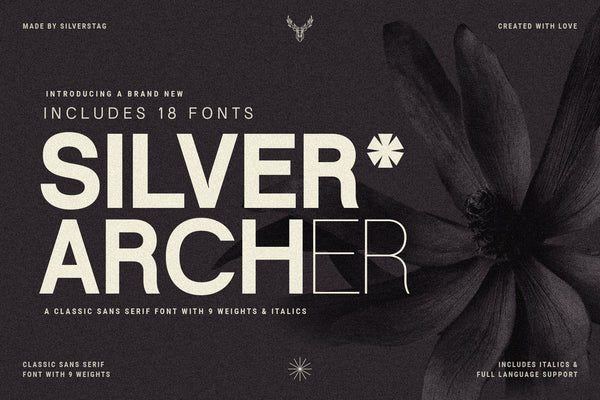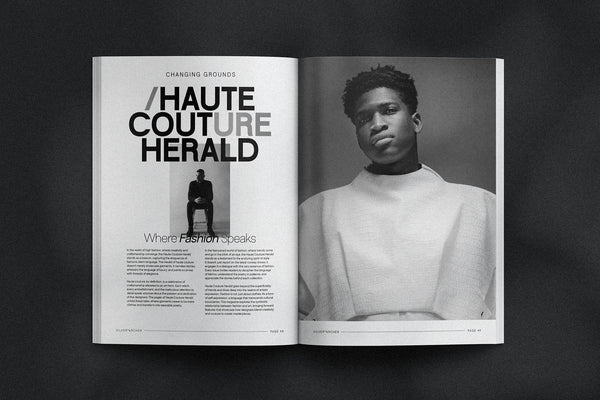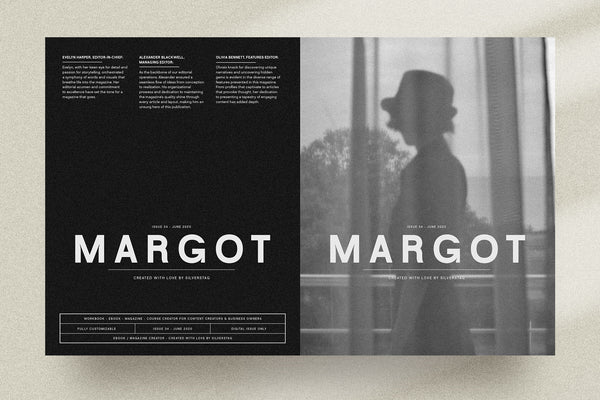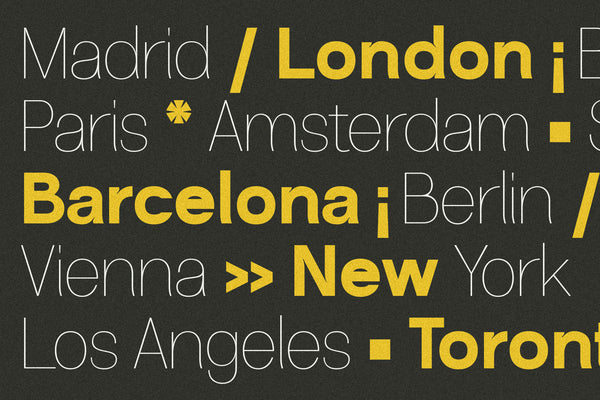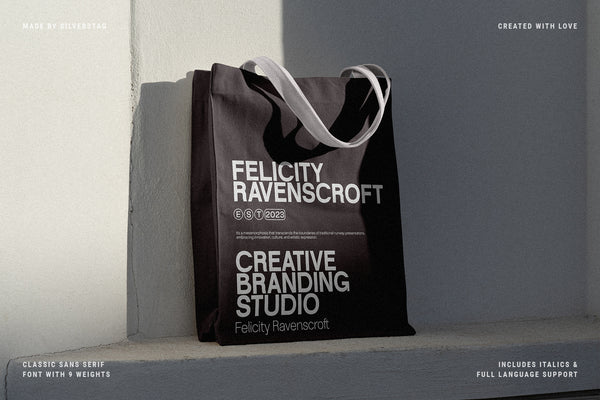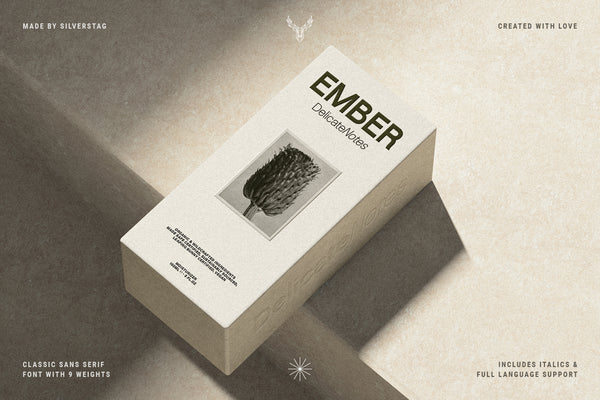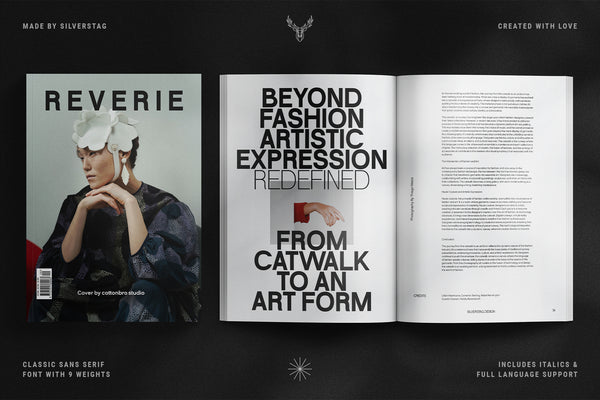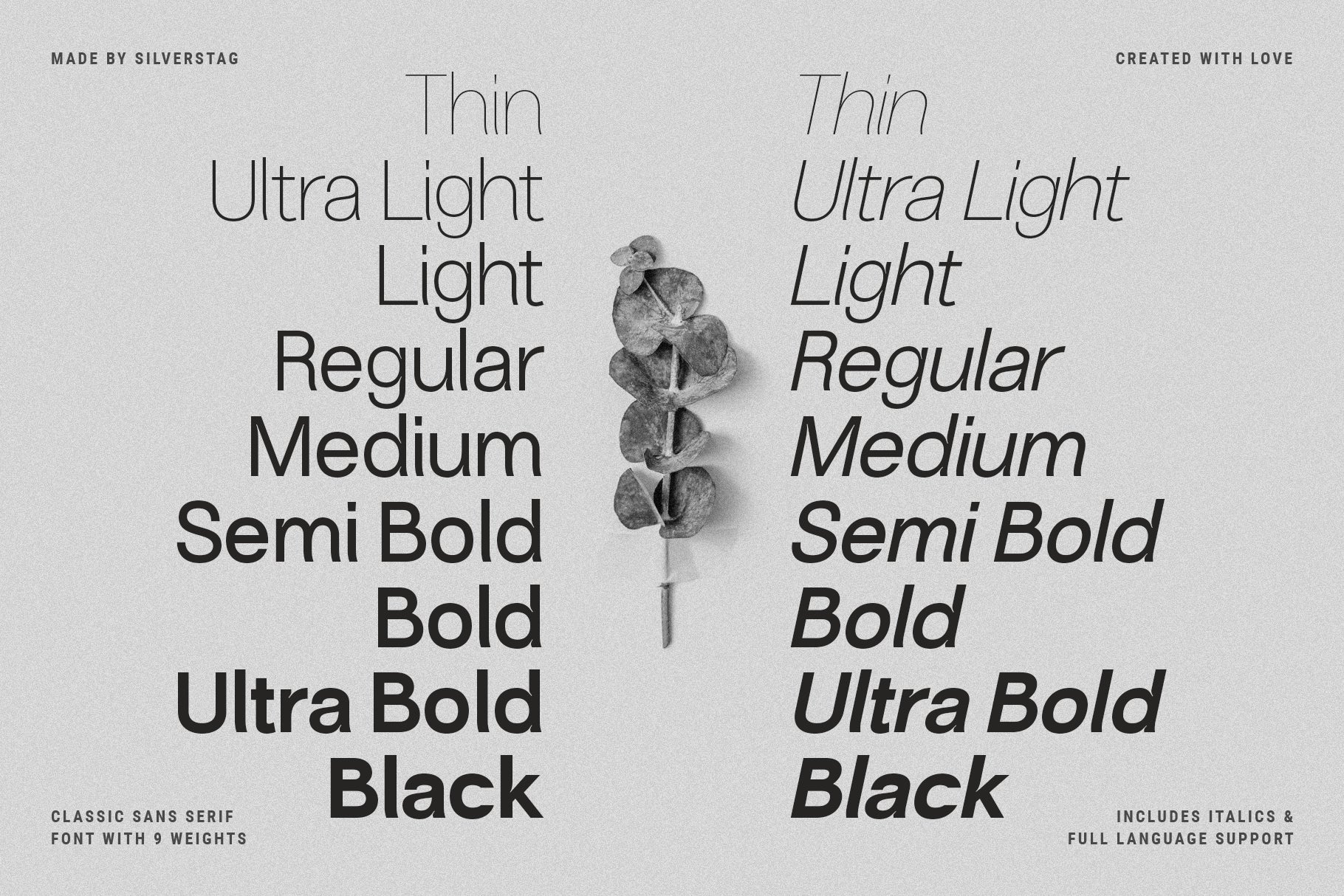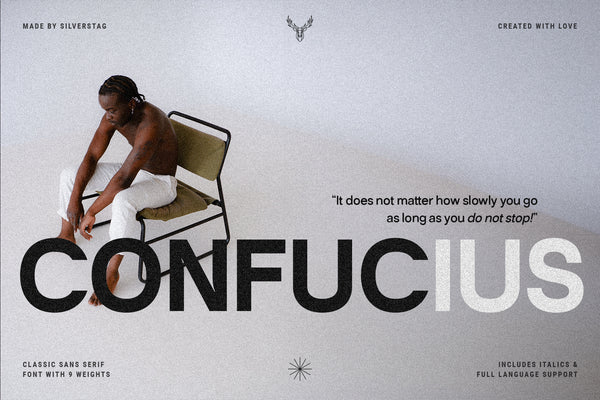
Silver Archer - Classic Sans Typeface
SLTF Silver Archer is a timeless sans serif typeface family inspired by the enduring elegance of mid-20th-century modernist design. With a refined balance of structure and softness, it offers a classic look that feels just as at home in contemporary branding as it does in editorial layouts or digital interfaces.
This versatile font family includes 18 styles — nine weights from Thin to Black, each with a matching italic — giving you full creative flexibility for hierarchy, tone, and typographic contrast. Designed with open counters, harmonious proportions, and a generous x-height, Silver Archer ensures excellent readability in both print and screen environments.
From luxury branding to book covers, websites, apps, and multilingual design systems, Silver Archer was built to perform with elegance and consistency. It supports over 90 languages, making it a smart choice for global design work.
Whether you’re crafting minimalist packaging, editorial layouts, or timeless brand identities, Silver Archer brings quiet confidence and classical charm to every letter.